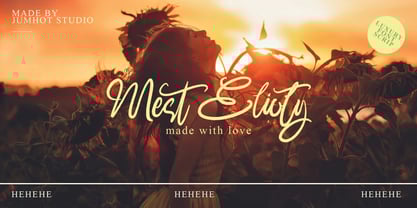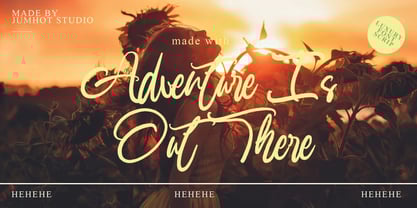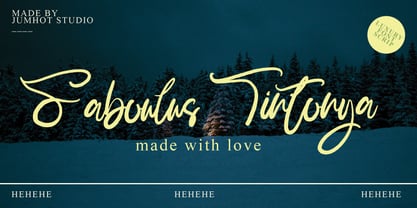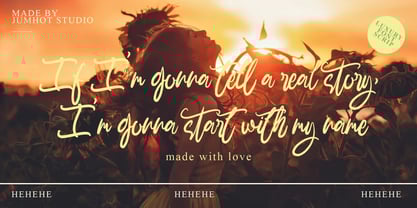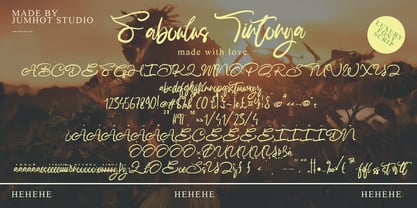
Faboulus Tintonya
by Pineungtype misinklab
The Faboulus Tintonya Font Family was designed by Beni Saswita and published by Pineungtype misinklab. Faboulus Tintonya contains 1 styles.
Faboulus Tintonya is a versatile font that brings a fresh style to various projects, including quotes, logos, blog headers, posters, branding, letters, invitations, and stationery. Experience the dynamic elegance of pointed pen mastery with Faboulus Tintonya. This font transcends mere quality, embodying the essence of pointed pen handwriting as a true masterpiece. The flowing lines and timeless grace of each character reflect the precision and artistry inherent in this refined craft, making it an ideal choice for those seeking sophistication and charm in their designs.
Designers: Beni Saswita
Publisher: Pineungtype misinklab
Foundry: Pineungtype misinklab
Design Owner: Pineungtype misinklab